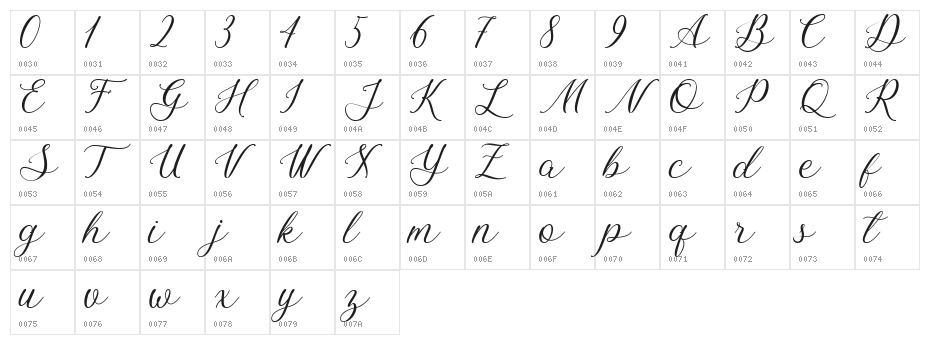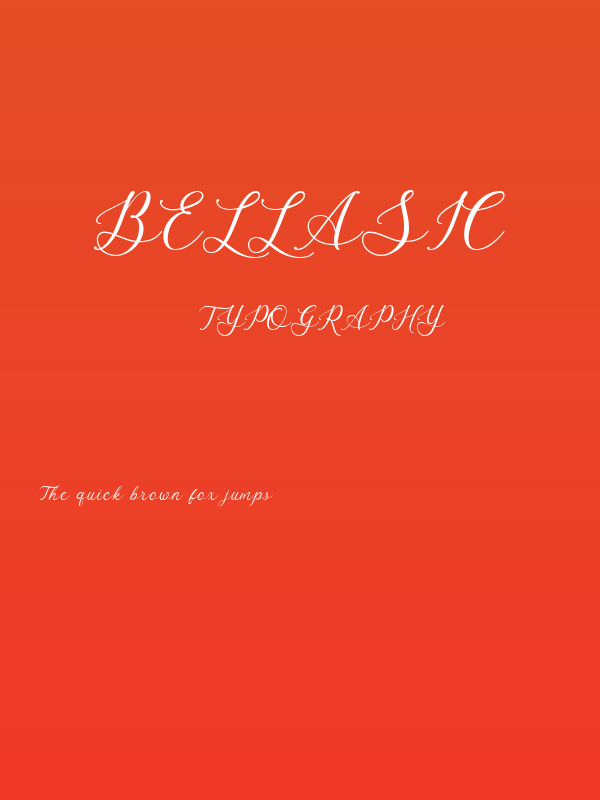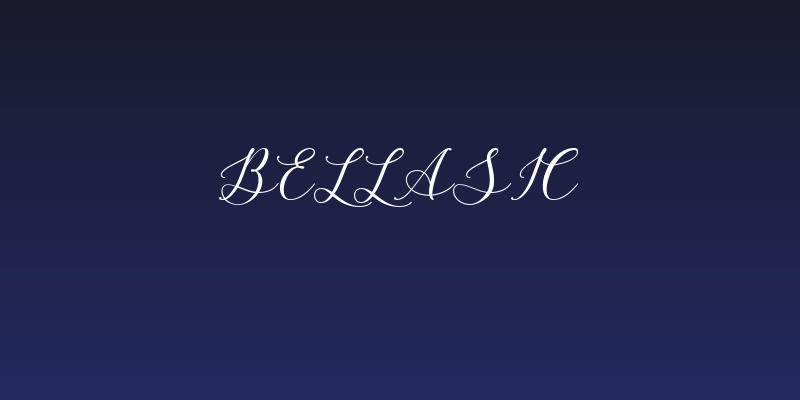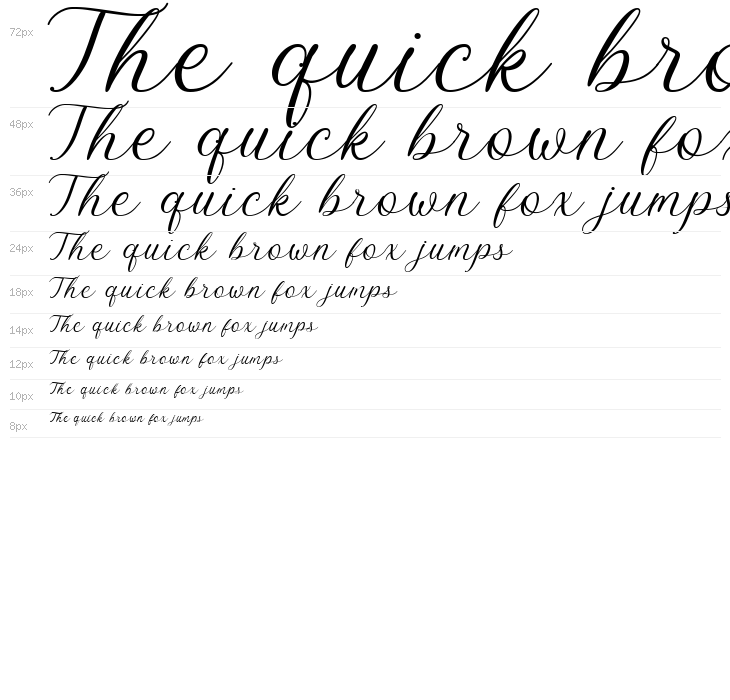
Bellasic Font
Bellasic Description
This elegant script font features fluid, cursive strokes that convey a sense of sophistication and grace. The uppercase letters are characterized by sweeping curves and flourishes, while the lowercase letters maintain a consistent flow with gentle loops and connections. The numerals are designed with a similar flair, ensuring a cohesive look across all characters. This font is perfect for adding a touch of elegance to any project, with its high contrast in stroke thickness enhancing its readability and visual appeal.
| Proposed Projects | Ideal for wedding invitations, elegant branding, greeting cards, and decorative signage. |